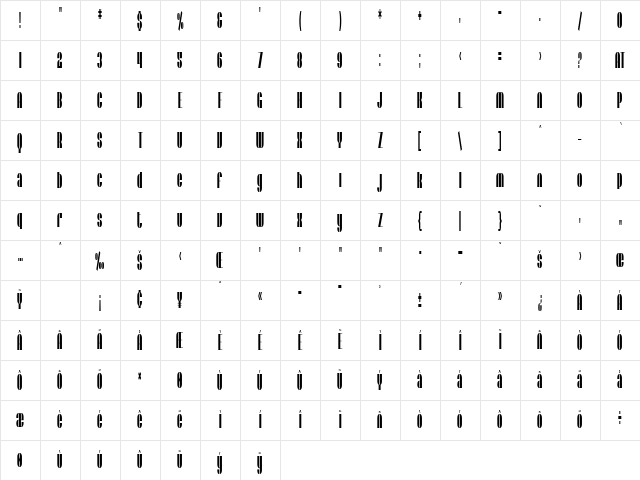
SF Baroquesque Regular Free Font
SF Baroquesque Regular
Design Context for SF Baroquesque
SF Baroquesque is a composed and adaptable typeface that performs quietly and consistently across a wide range of design contexts.
Pro Tip: Use SF Baroquesque in both headline and body roles to test its range before committing to a single application.